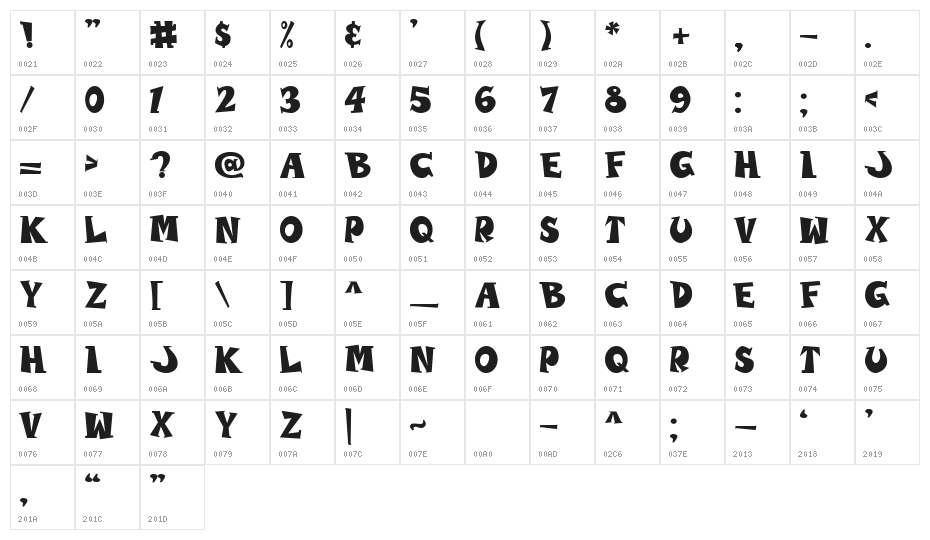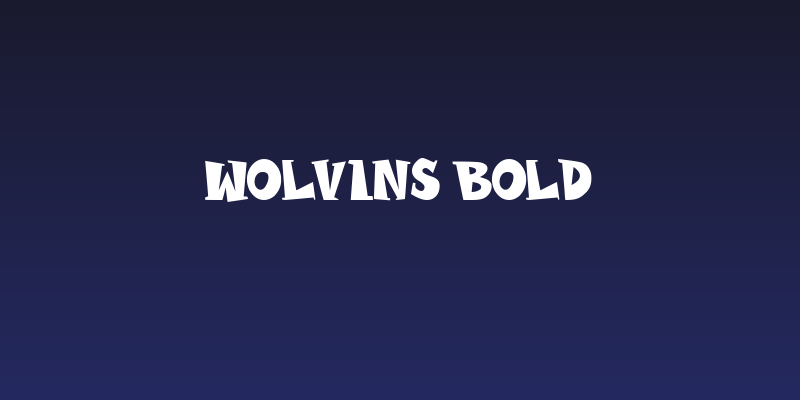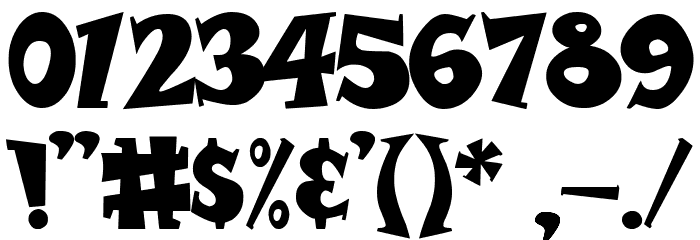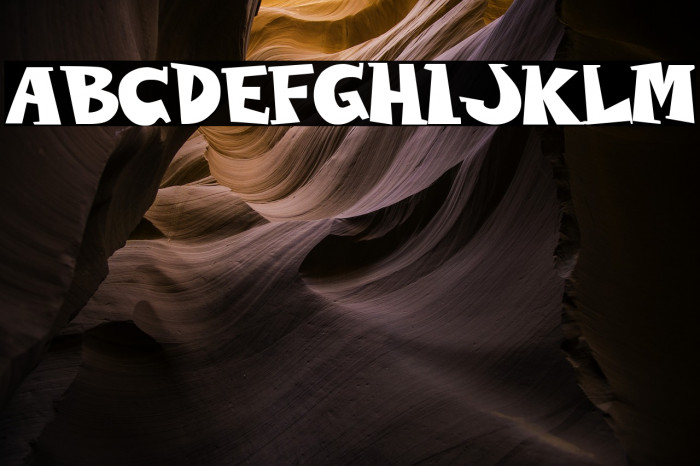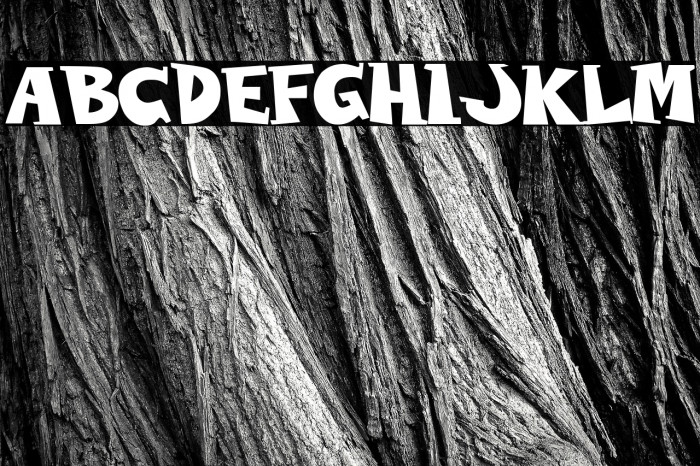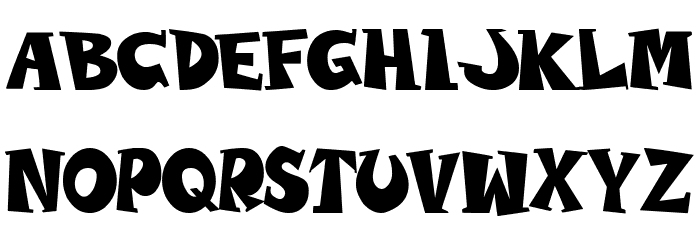
WOLVINS Bold Font
WOLVINS Bold Description
This font features a bold and dynamic style with exaggerated, angular shapes that give it a playful and energetic appearance. The characters are heavily stylized, with varying stroke widths that create a sense of movement and excitement. The uppercase and lowercase letters maintain a consistent design, while the numerals and special characters complement the overall aesthetic. The font's unique design makes it stand out, making it ideal for projects that require a strong visual impact.
WOLVINS-BOLD UPPERCASE
WOLVINS-BOLD LOWERCASE
WOLVINS-BOLD OTHER CHARS
| Proposed Projects | Perfect for posters, comic book titles, video game graphics, and any project needing a bold, energetic typeface. |